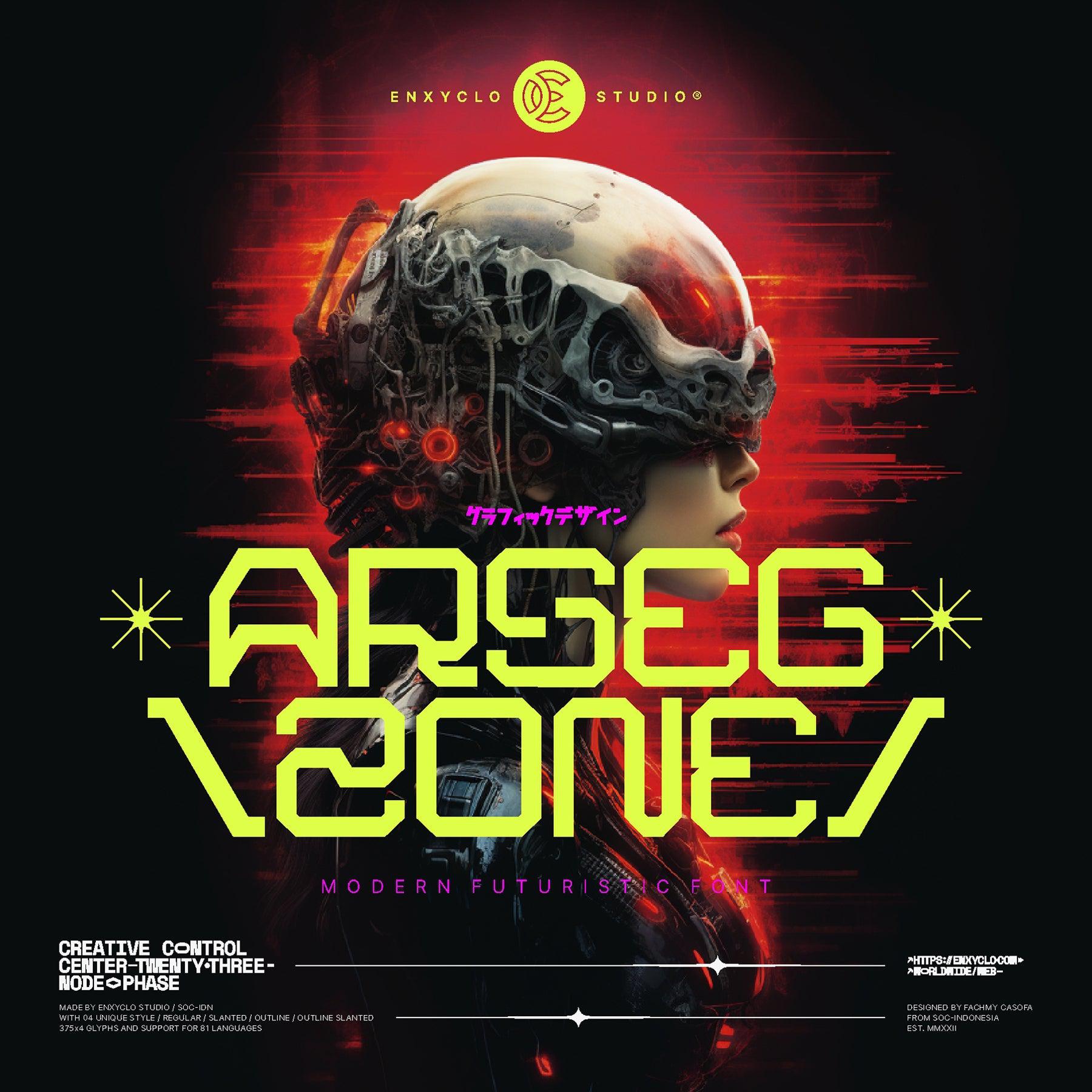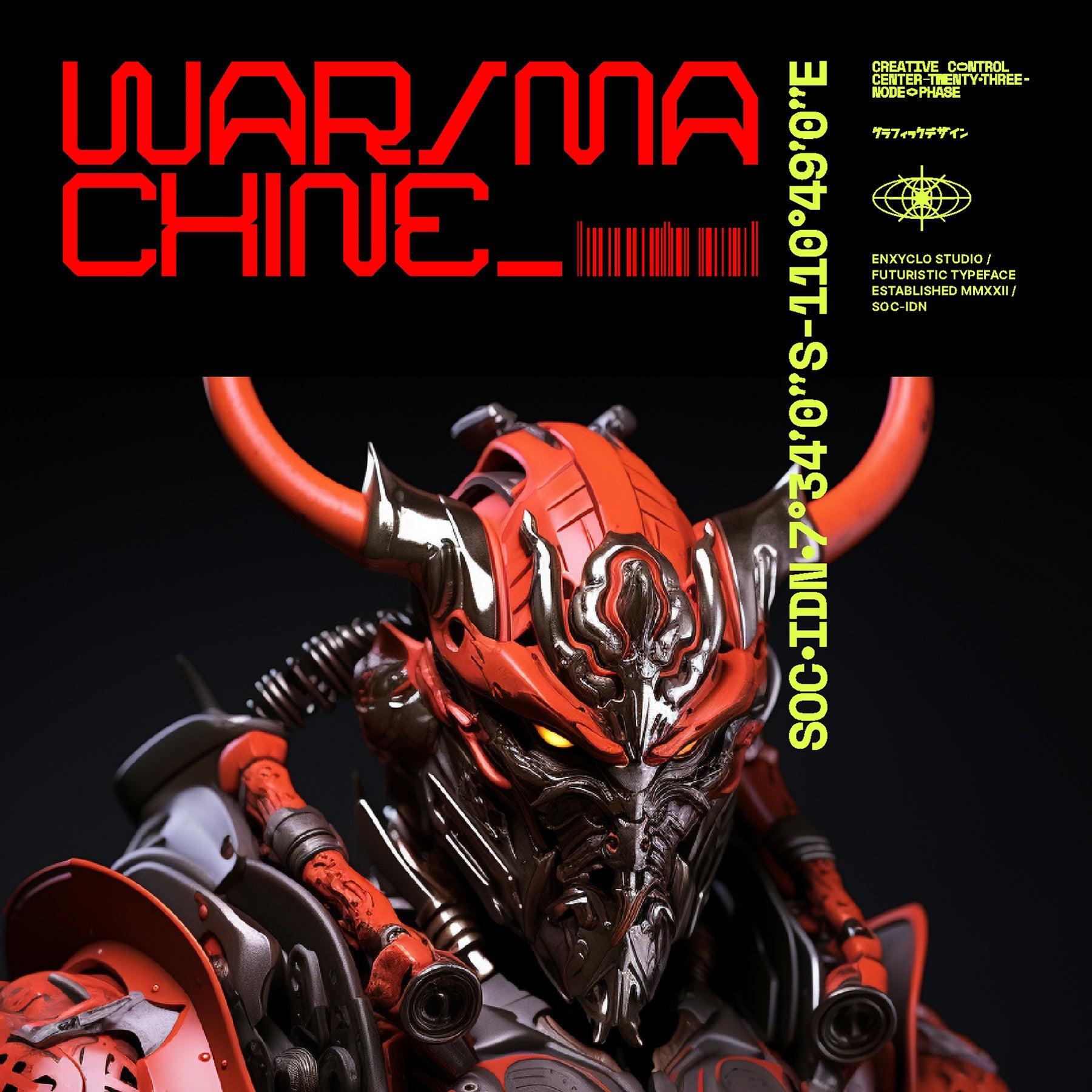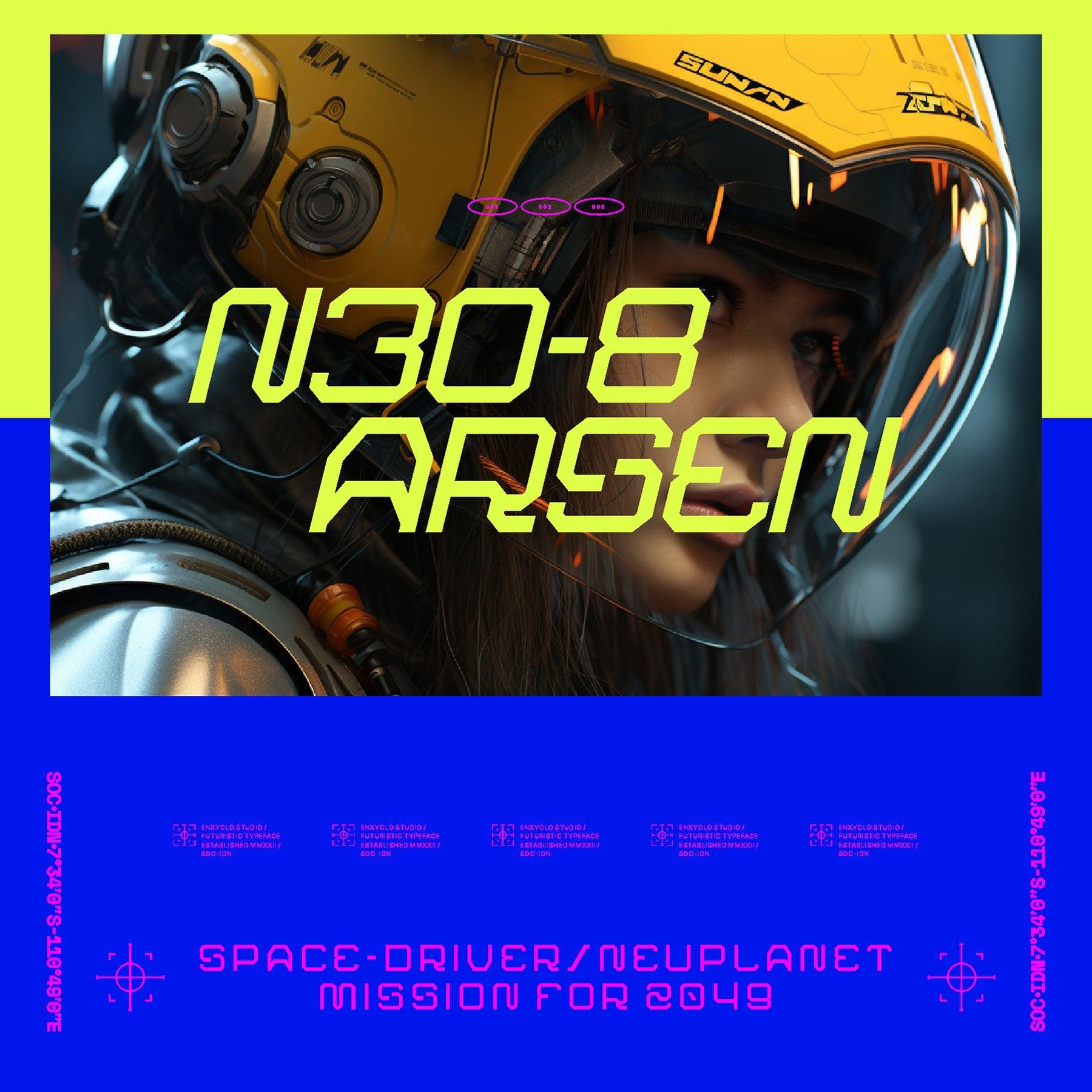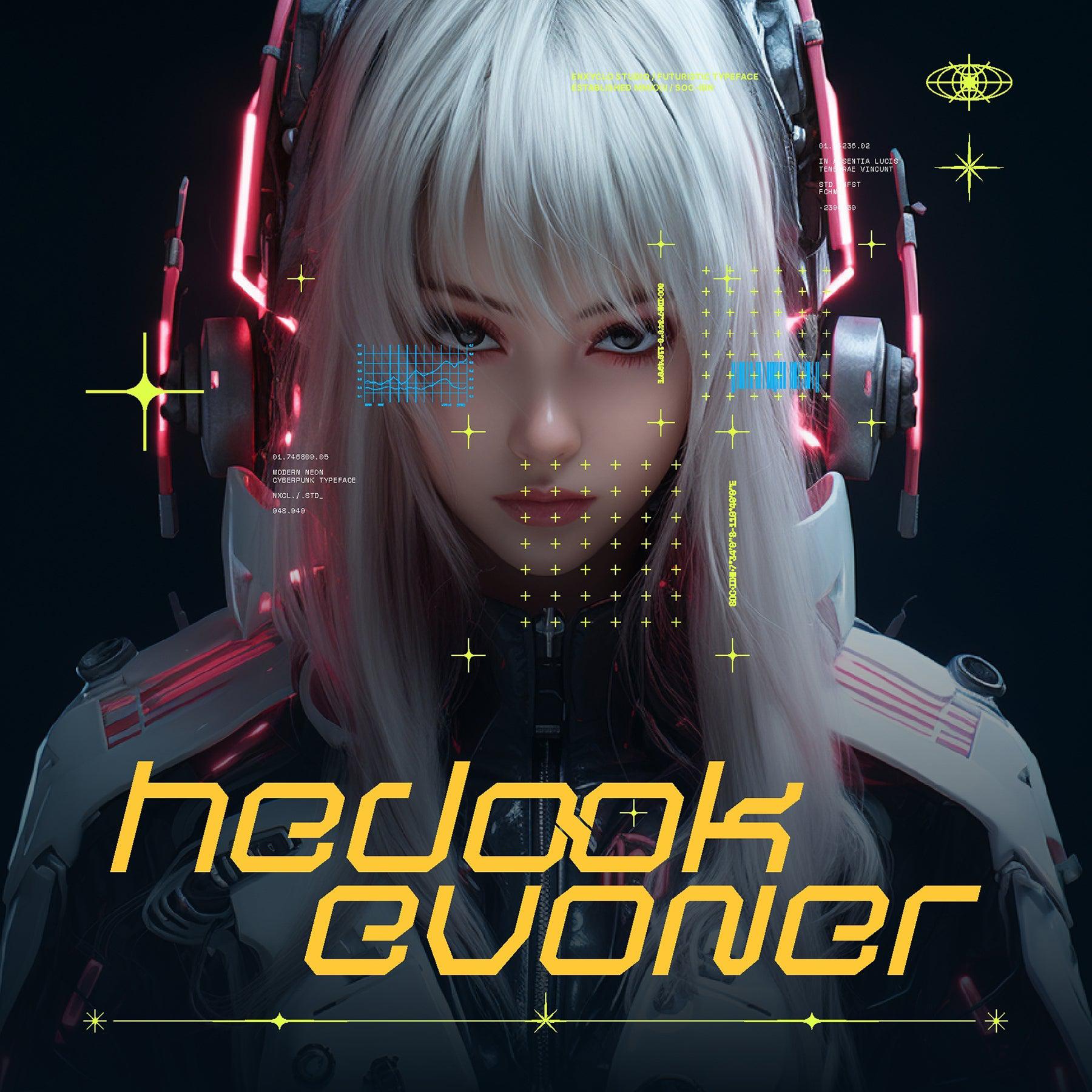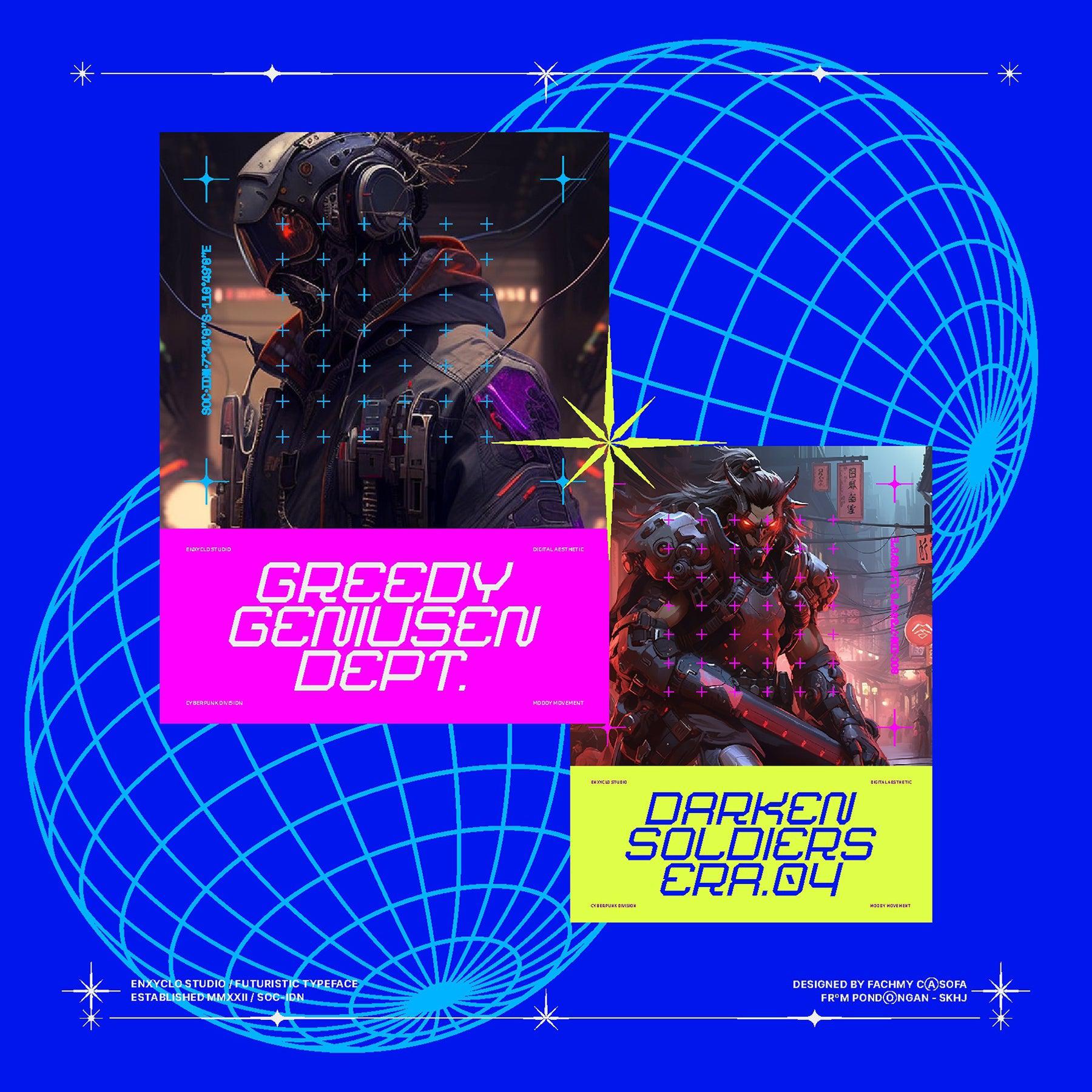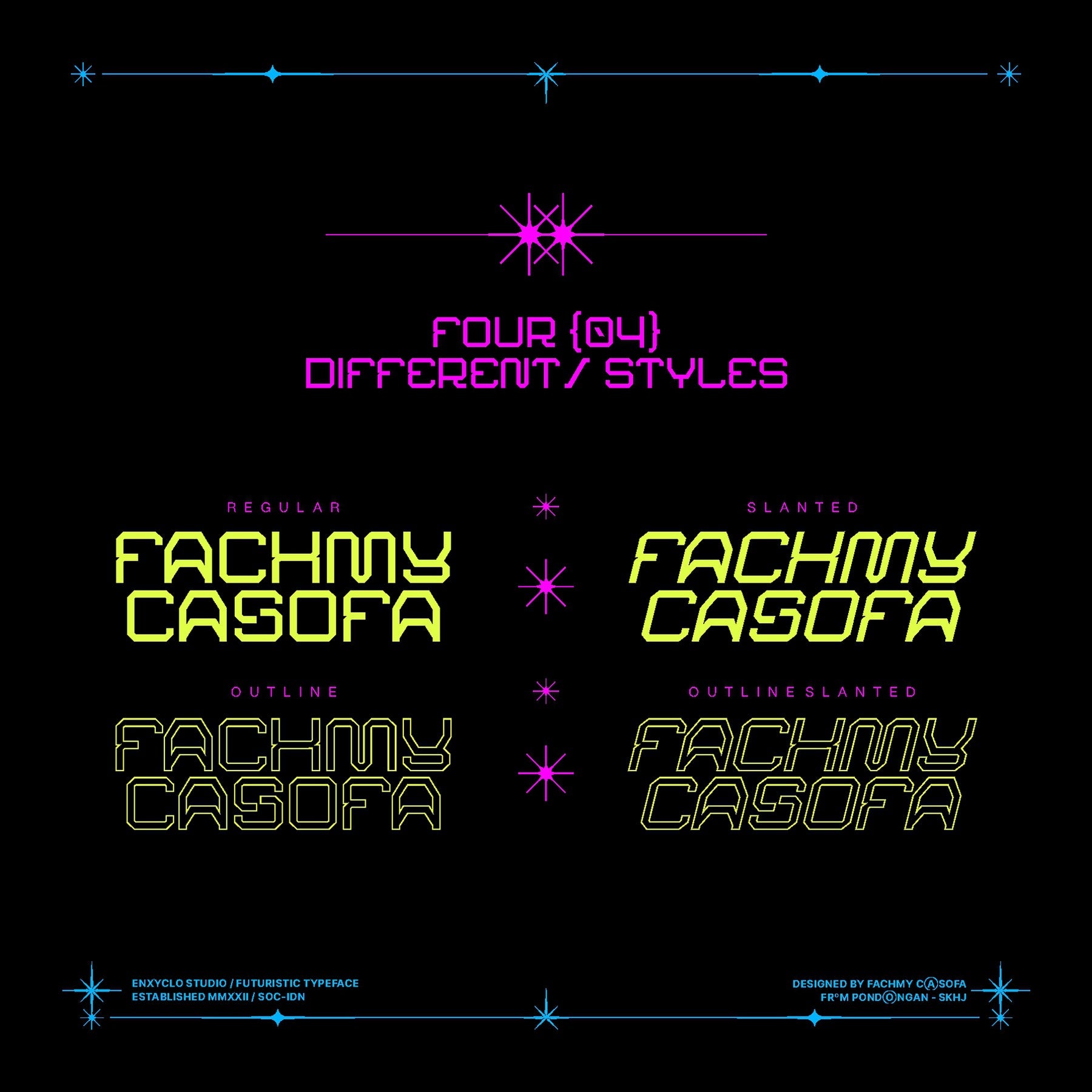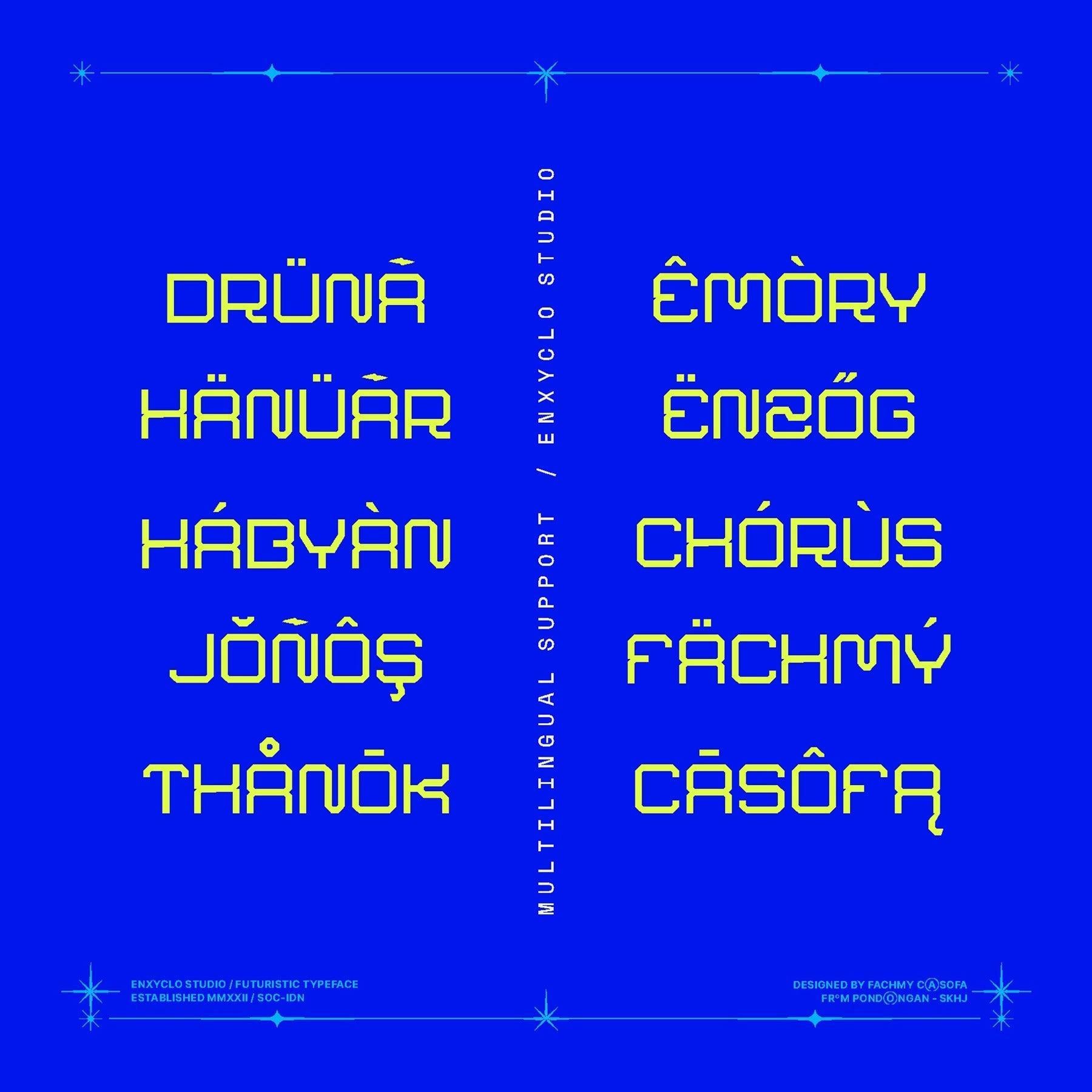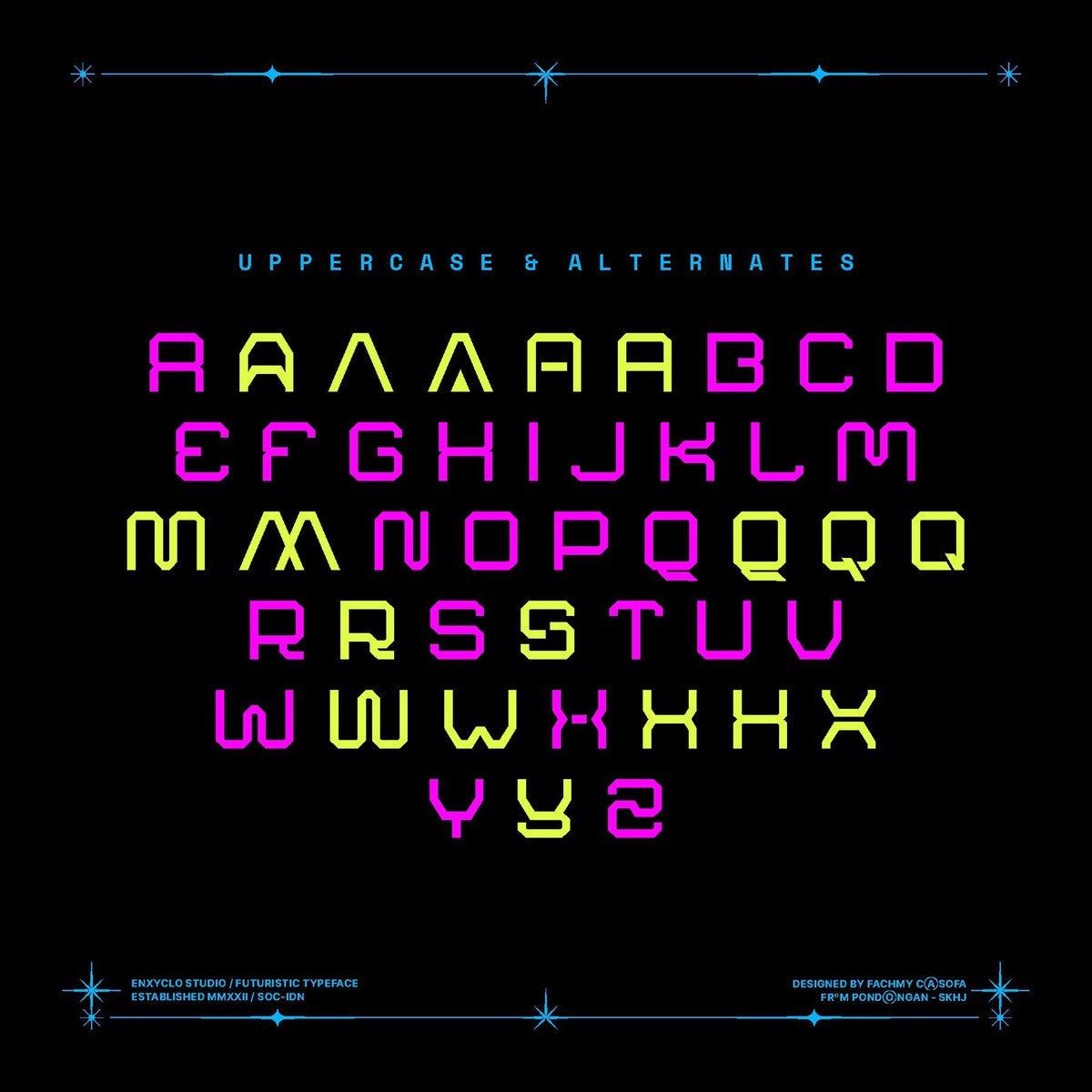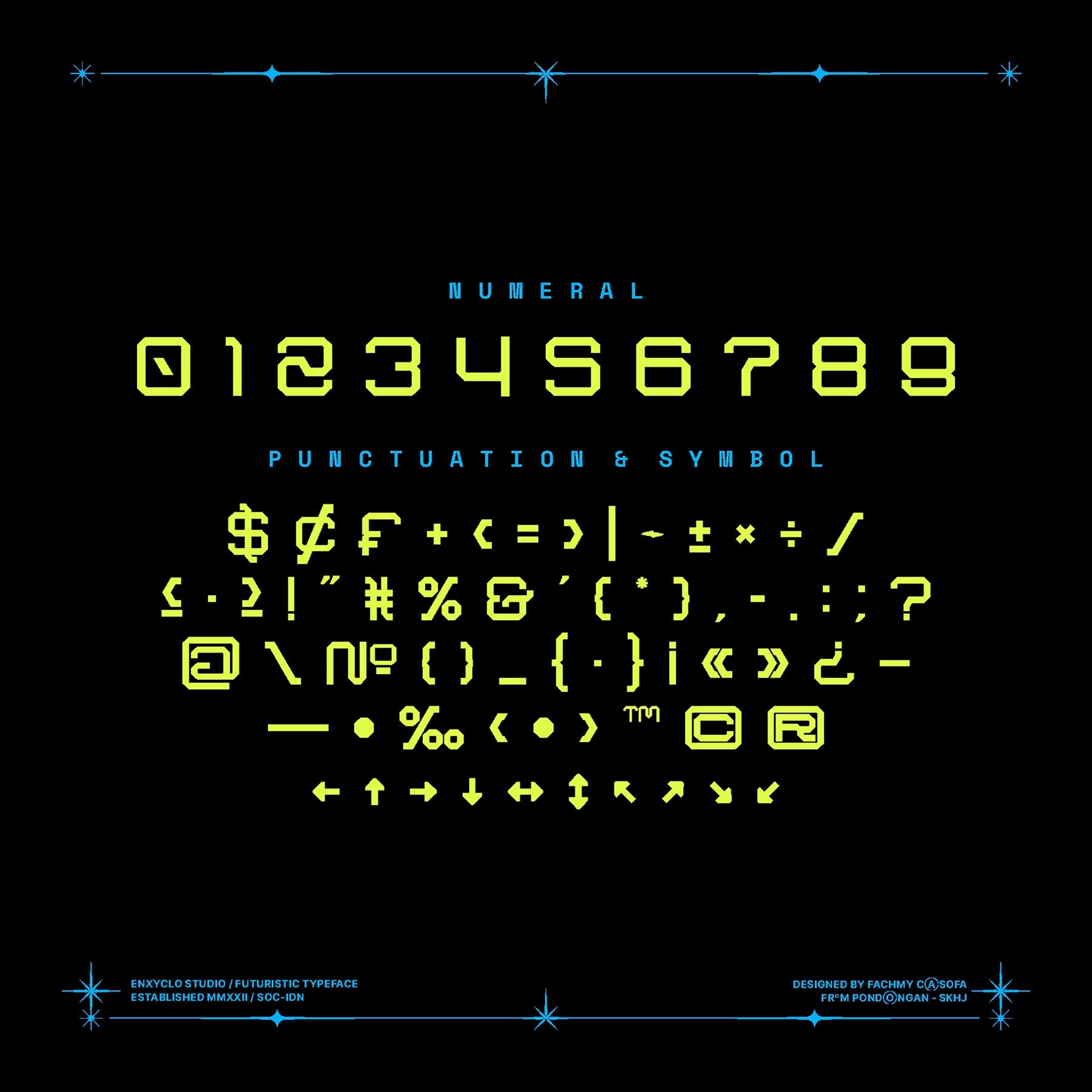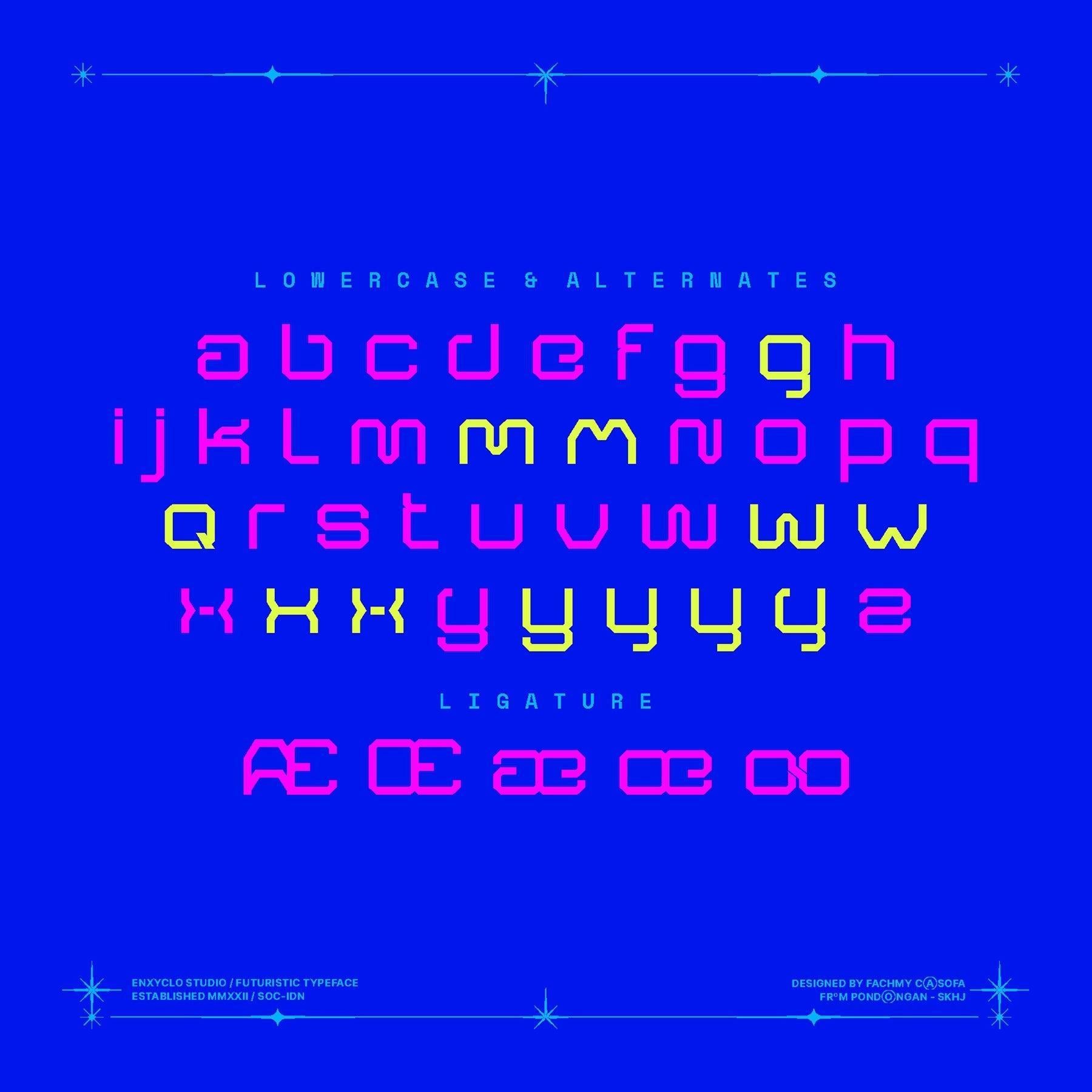
ARSEGZONE
The NCL ARSEGZONE is a modern, futuristic font that includes four styles: Regular, Slanted, Outline, and Outline Slanted. It provides True Type Font (TTF), Open Type Font (OTF), and Web Open Font Format (WOFF1 & WOFF2), with a total of 1500 glyphs including uppercase, lowercase, numerals, punctuation, symbols, arrows, and stylistic sets. This font supports 81 languages.
Ideal for modern futuristic graphic design and cyberpunk aesthetics. Perfect for websites, posters, logos, and branding projects, ensuring a distinctive and innovative visual impact.